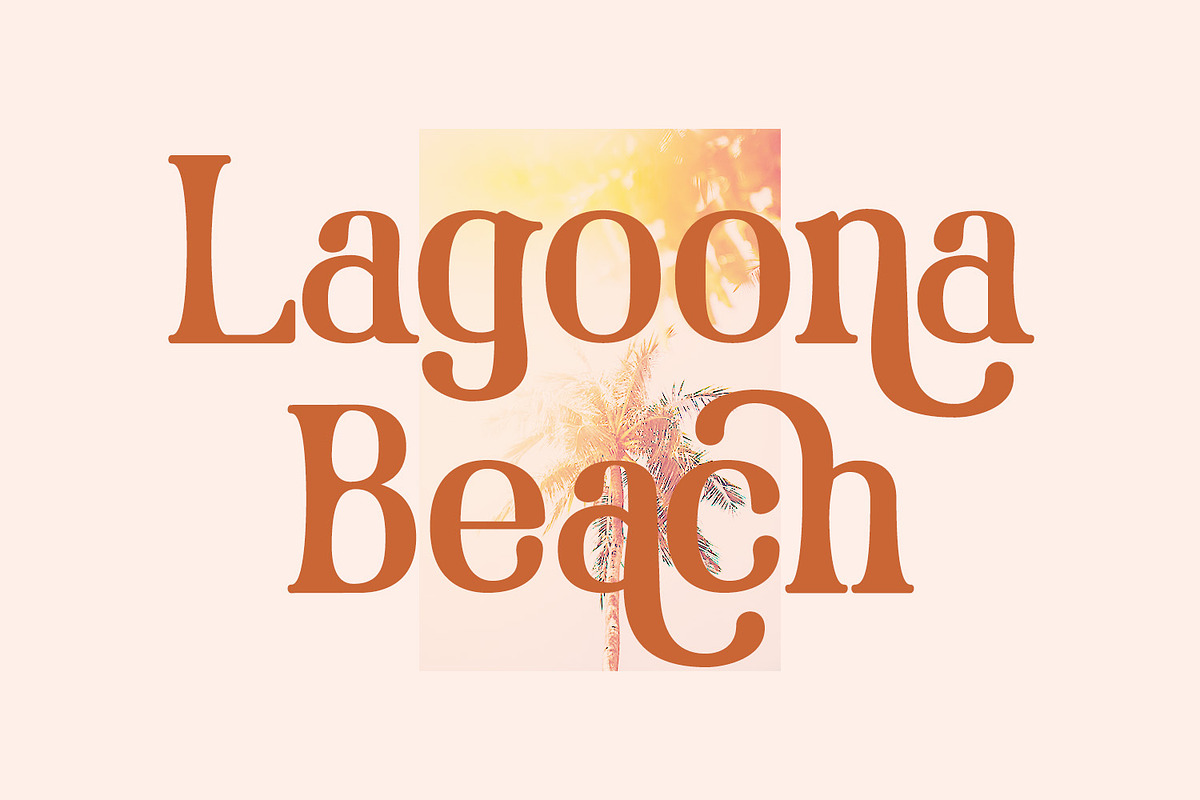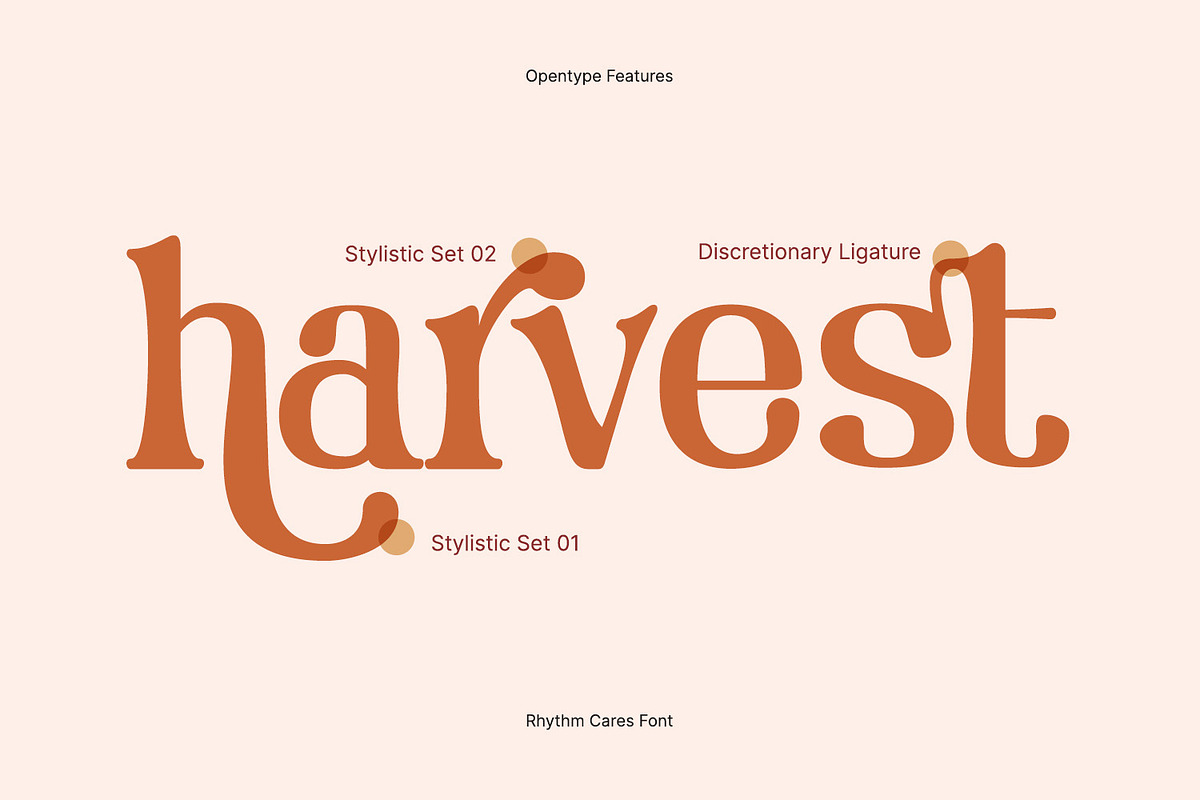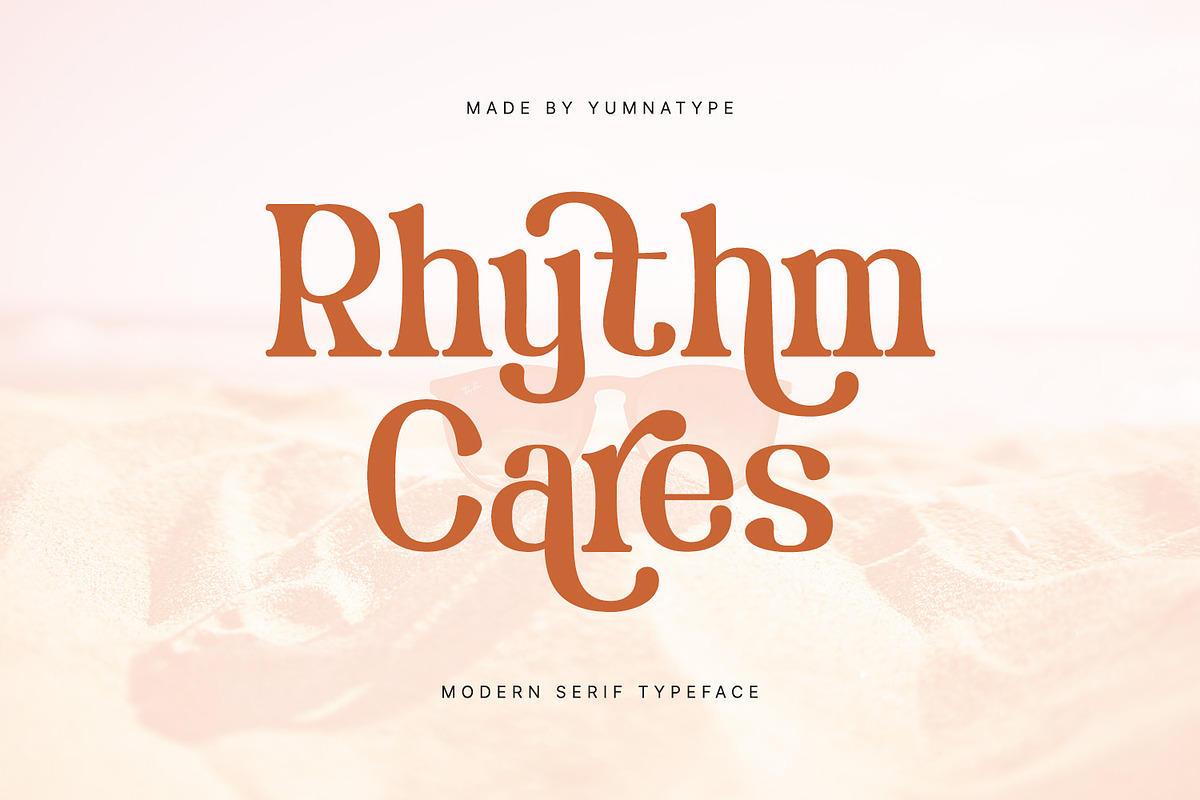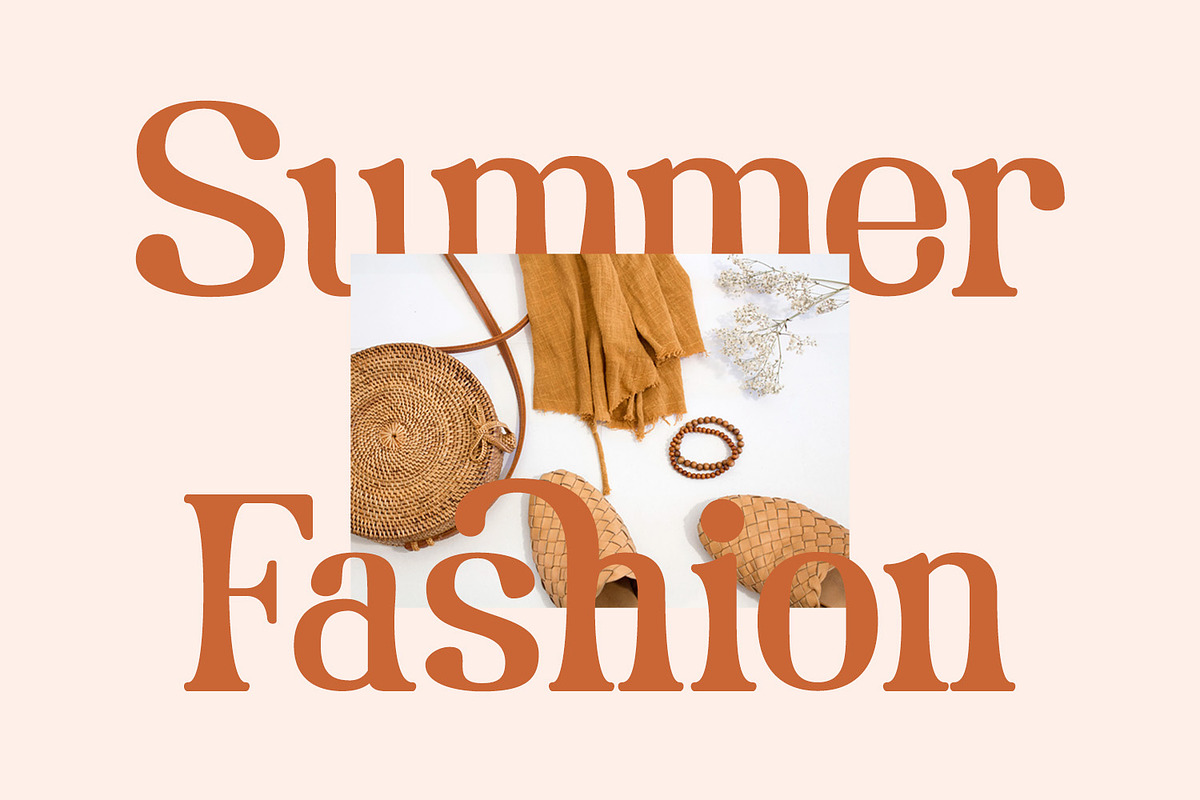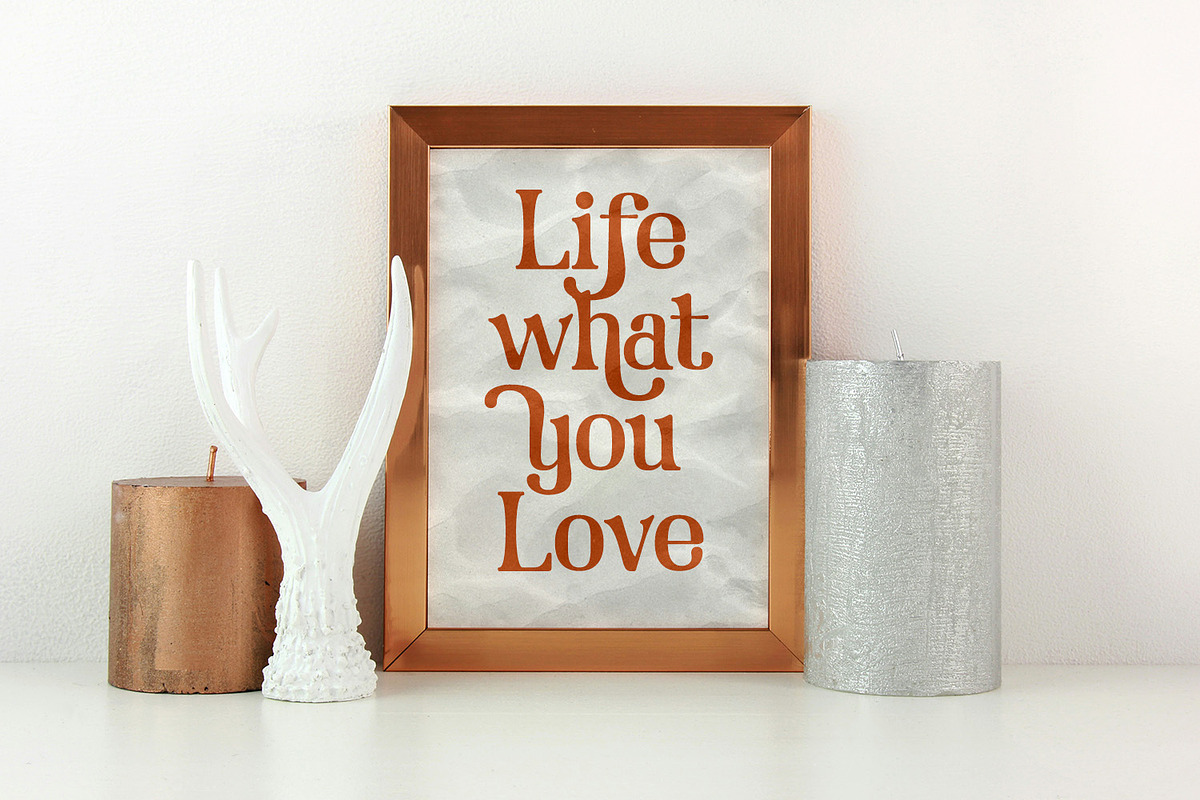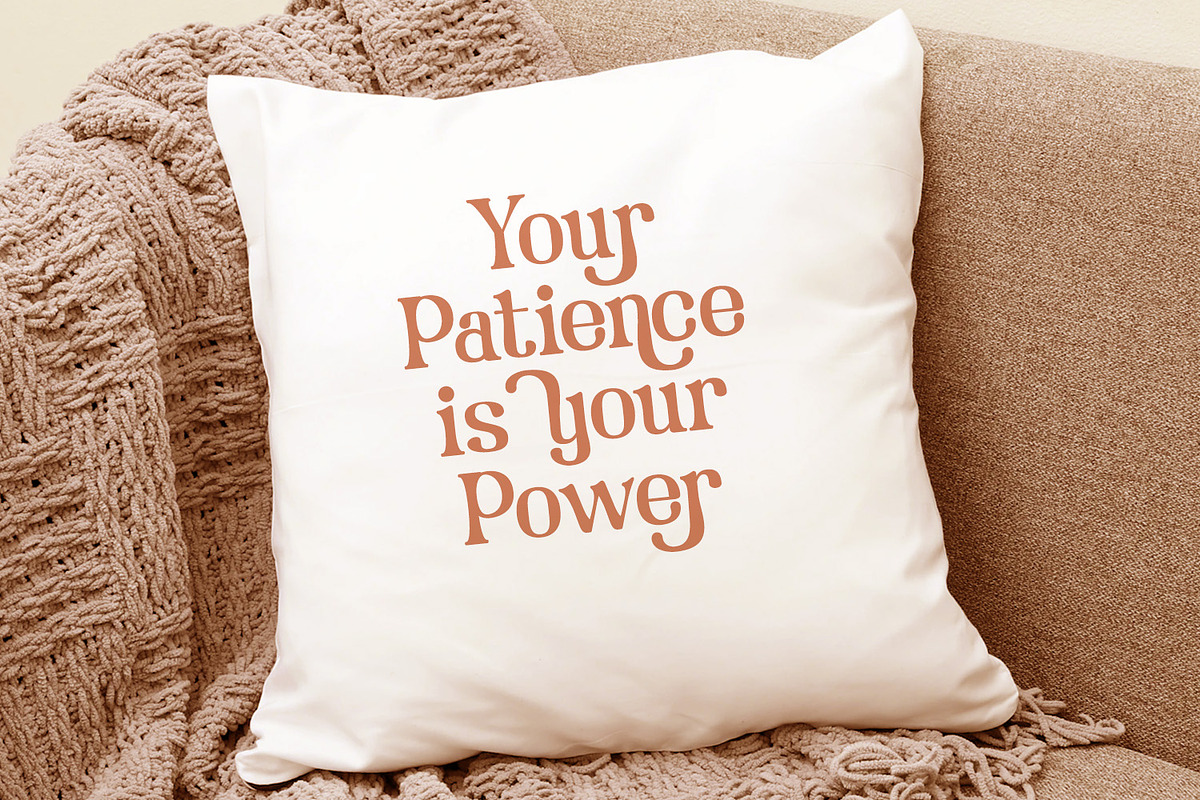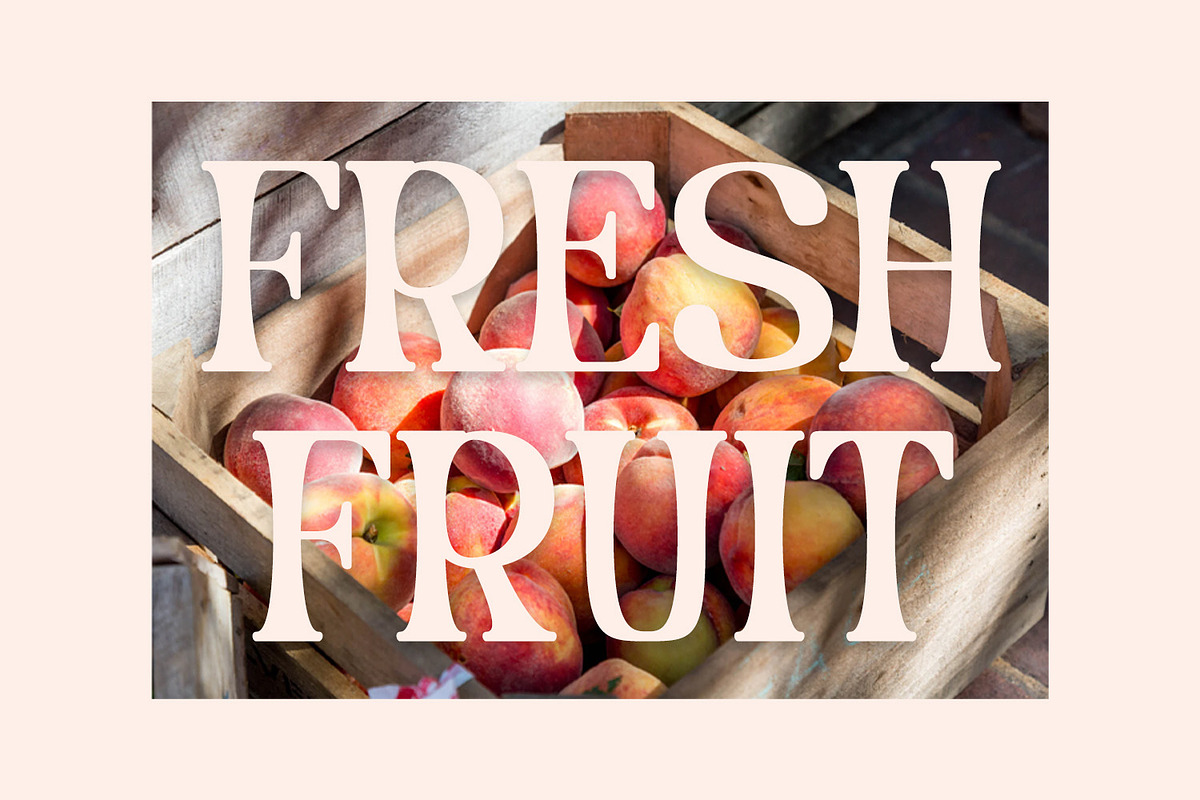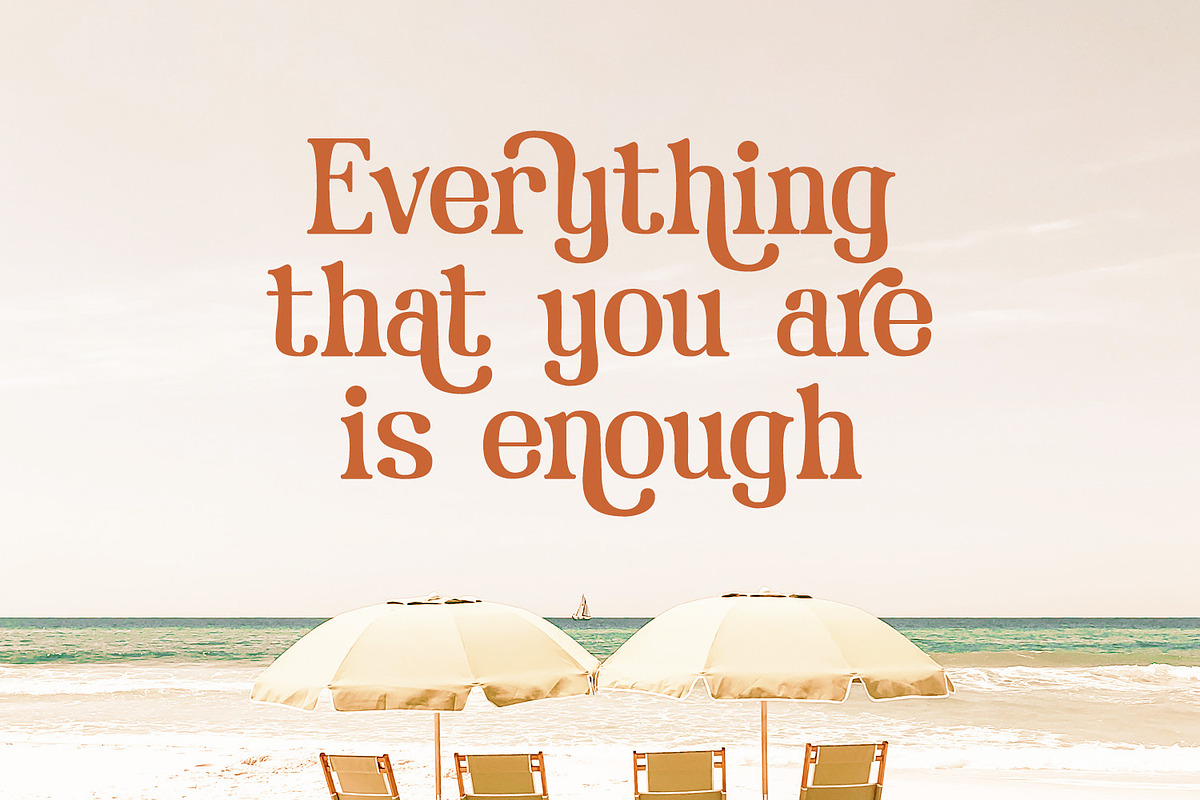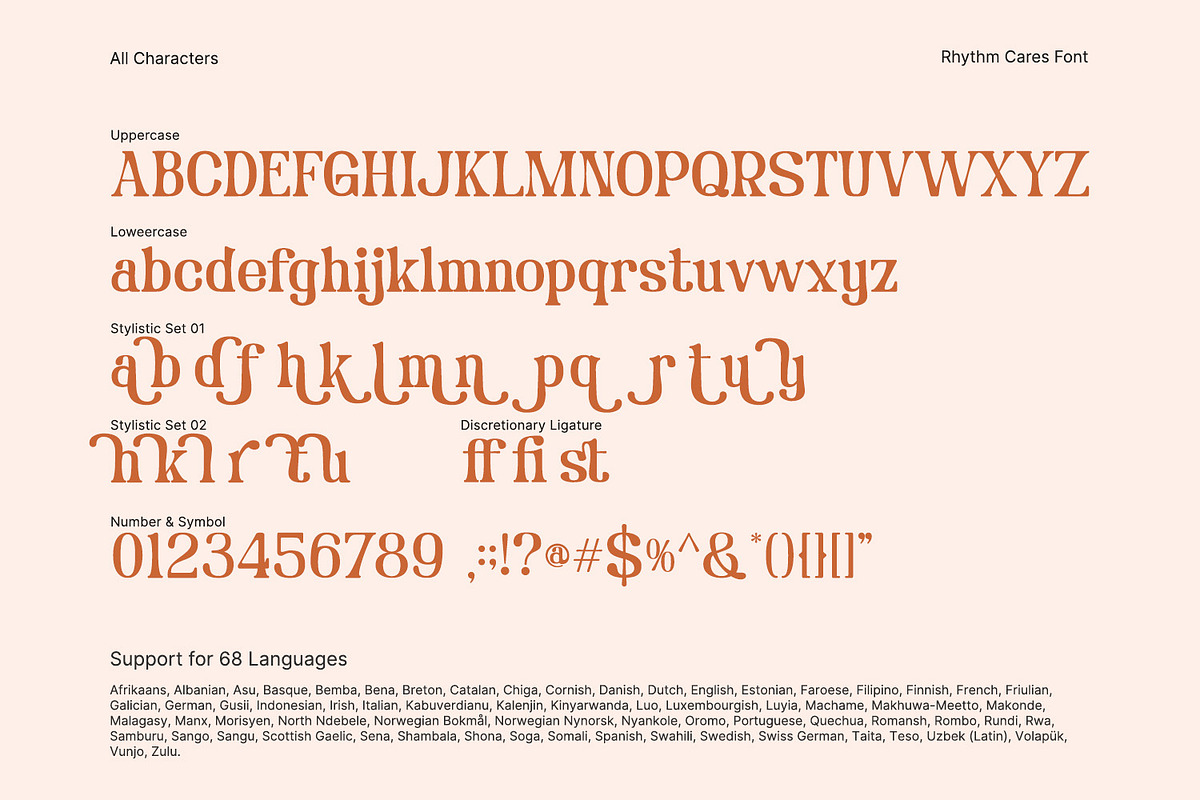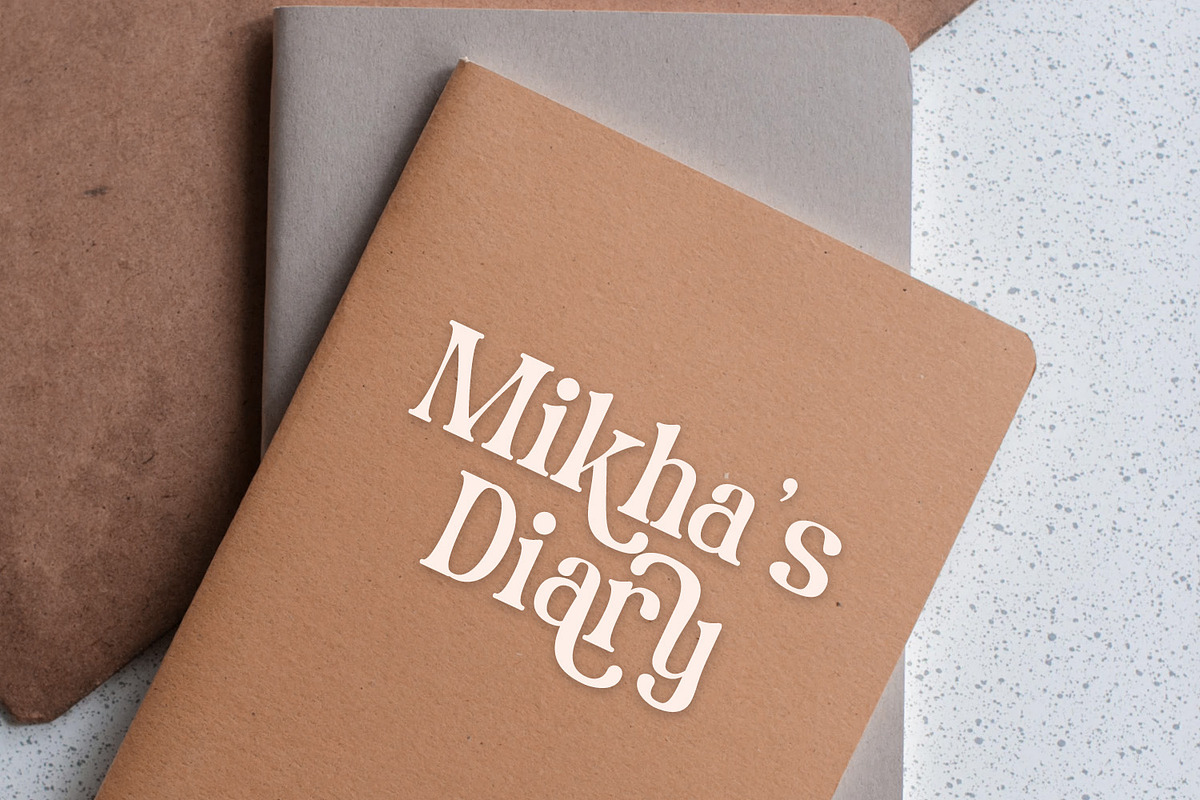
Rhythm Cares
Rhythm Cares is a captivating serif font that dances across the page with modern elegance and style. Crafted with meticulous attention to detail, Rhythm Cares is made with sleek lines, subtle curves, and balanced proportions that create a harmonious rhythm on the page. Each letter is designed to flow seamlessly into the next, creating a sense of fluidity and movement that captures the eye and engages the viewer.
Despite its classic serif roots, Rhythm Cares is anything but traditional. With its modern style and contemporary flair, this font adds a touch of vibrancy and energy to any design project. In addition, enjoy the features here.
- Stylistic Sets
Rhythm Cares fits in headlines, logos, posters, flyers, branding materials, greeting cards, print media, editorial layouts, and many more designs. Find out more ways to use this font by taking a look at the font preview.